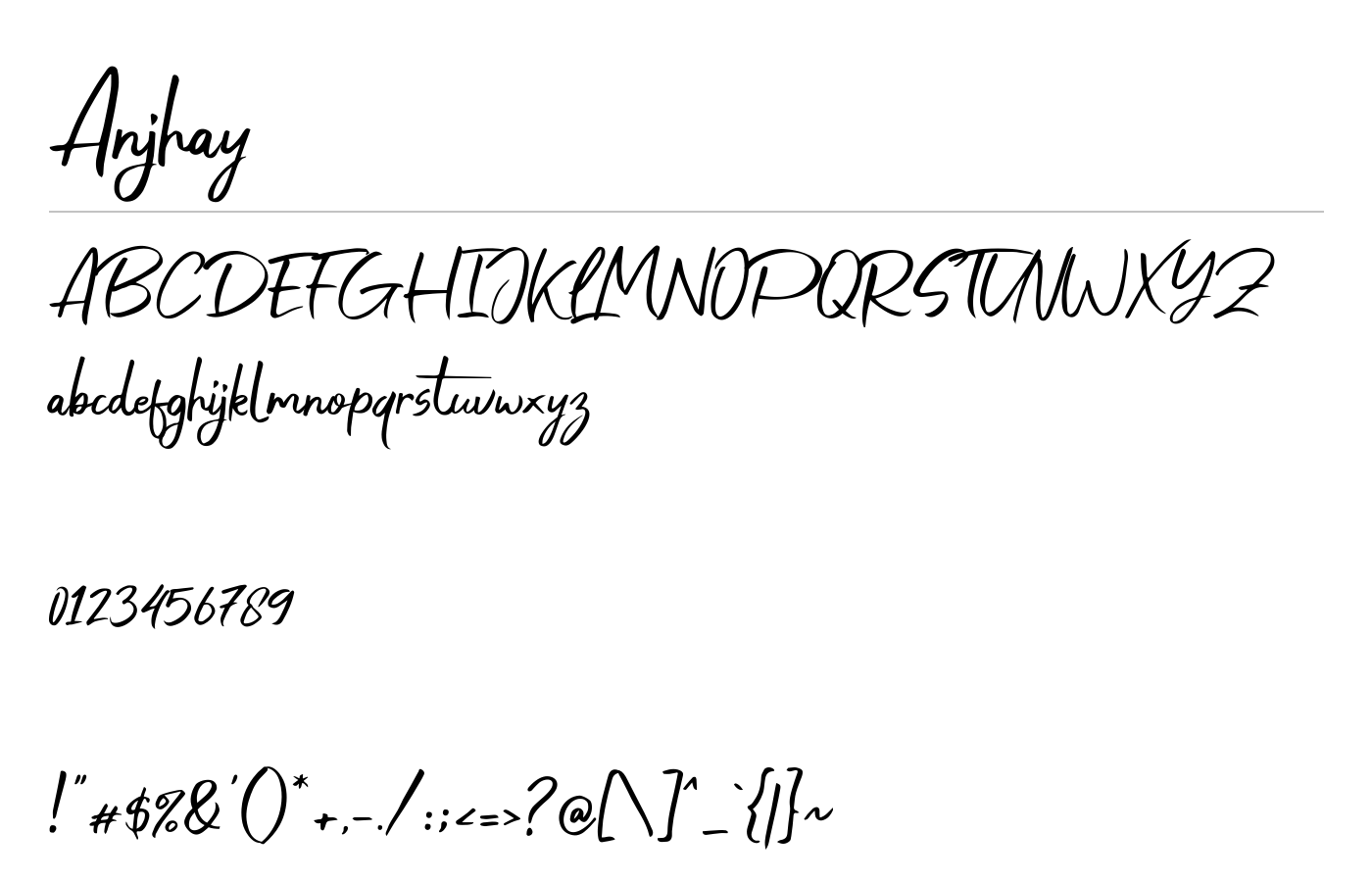
Anjhay is a lively and elegant script font with a handwritten feel, featuring slender, flowing strokes and a natural, casual style. Its smooth, slightly slanted letterforms with consistent weight make it perfect for creating a personal, approachable look. This font works beautifully for branding, invitations, and creative projects that seek a warm, stylish touch.
Anjhay Font
About Anjhay Font
| Font family | Anjhay Font |